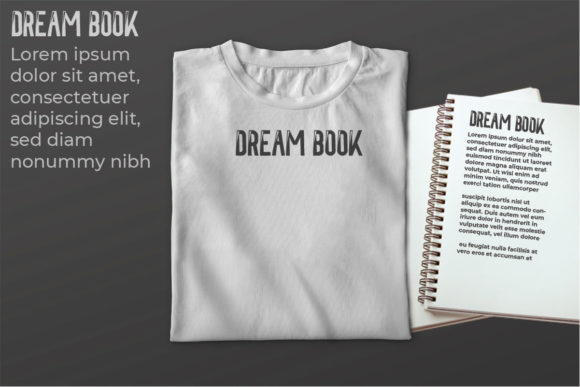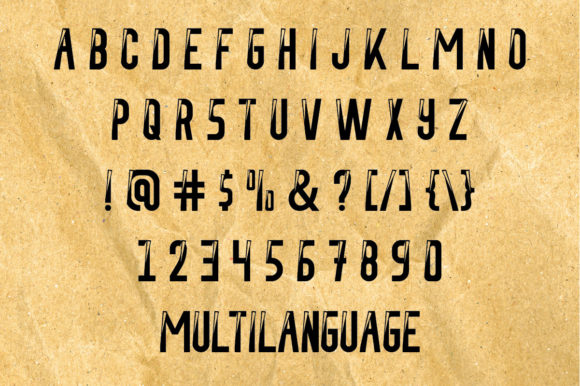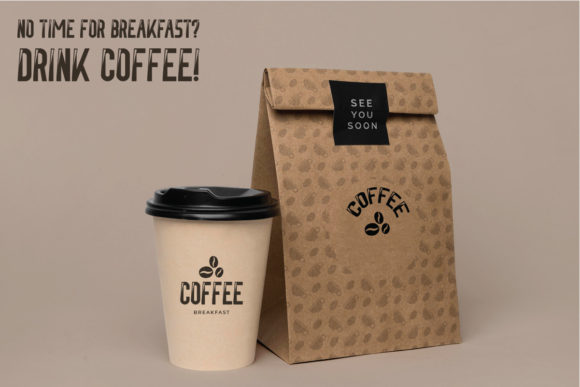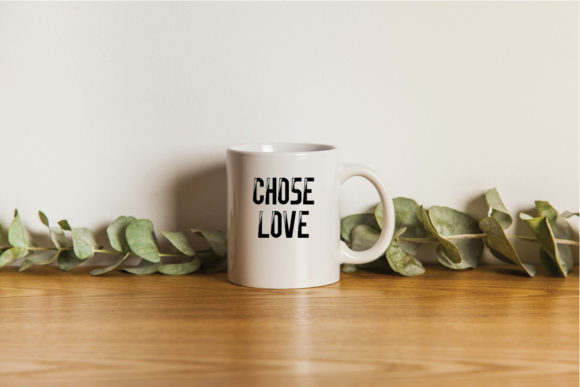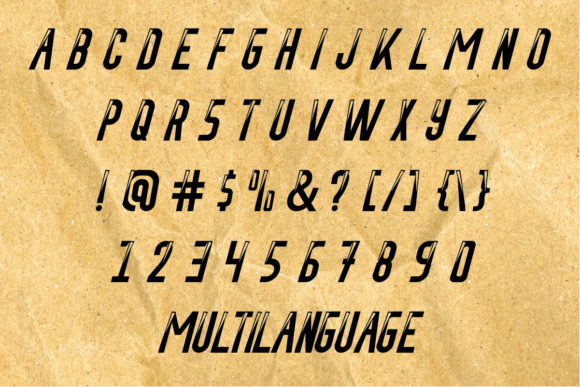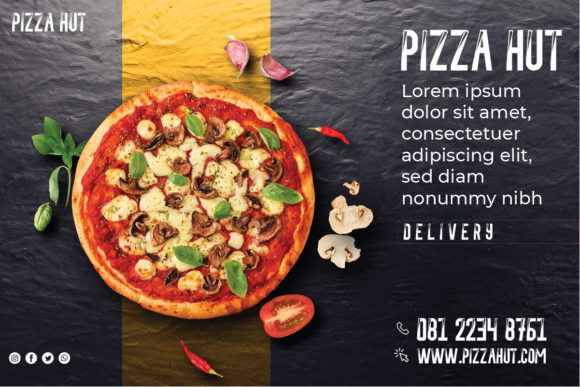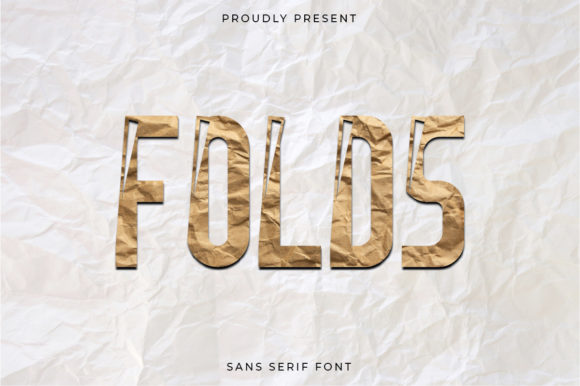
Folds Font: Elevate Your Designs with a Cool and Fun Display Font
Are you tired of using the same old fonts in your designs? Look no further than Folds Font, a cool and fun display font that’s sure to take your creations to the next level. With its unique and playful style, Folds Font is an incredible asset to any font library, and can be used on a wide range of topics and projects.
What is Folds Font?
Folds Font is a display font that’s designed to make a statement. Its distinctive folded style gives it a fun and quirky feel, making it perfect for designs that need a bit of personality. Whether you’re working on a logo, a poster, or a social media graphic, Folds Font is sure to grab attention and leave a lasting impression.
Why Use Folds Font?
So why should you choose Folds Font for your designs? Here are just a few reasons:
- Versatility: Folds Font can be used on a wide range of topics and projects, from fun and playful designs to more serious and professional ones.
- Uniqueness: With its distinctive folded style, Folds Font is sure to stand out from the crowd and make your designs more memorable.
- Ease of use: Folds Font is easy to read and use, even at smaller sizes, making it perfect for a wide range of applications.
- Customization: Folds Font can be customized to fit your brand’s style and personality, making it a great addition to any font library.
How to Use Folds Font
Using Folds Font in your designs is easy. Here are a few tips to get you started:
- Pair it with other fonts: Folds Font pairs well with a wide range of other fonts, from serif and sans serif fonts to script and decorative fonts.
- Experiment with colors: Folds Font looks great in a wide range of colors, from bright and bold to more muted and subtle.
- Play with sizes: Folds Font can be used at a wide range of sizes, from small and subtle to large and dramatic.
Design Inspiration with Folds Font
Need some inspiration for your designs? Here are a few ideas to get you started:
- Party invitations: Folds Font is perfect for party invitations, with its fun and playful style.
- Social media graphics: Folds Font is great for social media graphics, with its bold and eye-catching style.
- Logos: Folds Font can be used to create unique and memorable logos that stand out from the crowd.
- Posters: Folds Font is perfect for posters, with its bold and attention-grabbing style.
In conclusion, Folds Font is a cool and fun display font that’s sure to elevate any creation. With its unique and playful style, Folds Font is an incredible asset to any font library, and can be used on a wide range of topics and projects. Whether you’re a designer, a crafter, or just someone who loves to create, Folds Font is a great addition to your toolkit.
Tips for Using Folds Font in Your Designs
Here are a few final tips for using Folds Font in your designs:
- Experiment and have fun: Don’t be afraid to try new things and experiment with different styles and combinations.
- Keep it simple: Folds Font is a bold and eye-catching font, so keep your designs simple and clean to let the font shine.
- Be creative: Folds Font is a versatile font that can be used in a wide range of designs, so don’t be afraid to think outside the box and try new things.